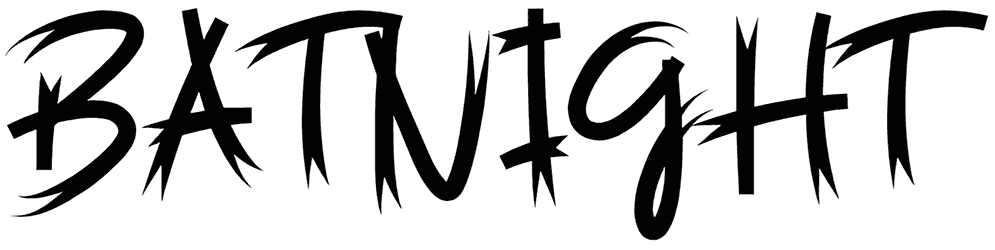
Batnight Font
If you like your design to be playful and at the same time chill, Batnight would be a good option. This brush font has hand hand-formed style and could be haunting for a lot of creative projects. Even if there is no backup of lowercase letters, you can set this Halloween font for various designs from posters to backgrounds, and cause an interesting effect.